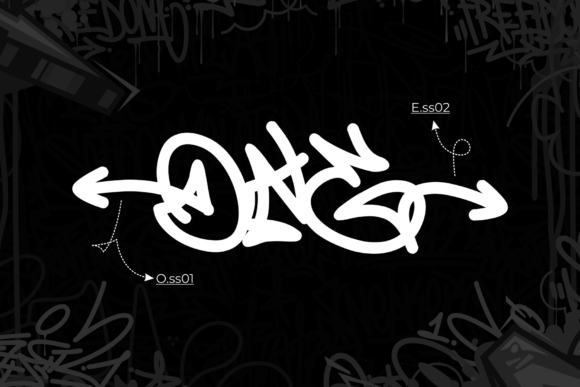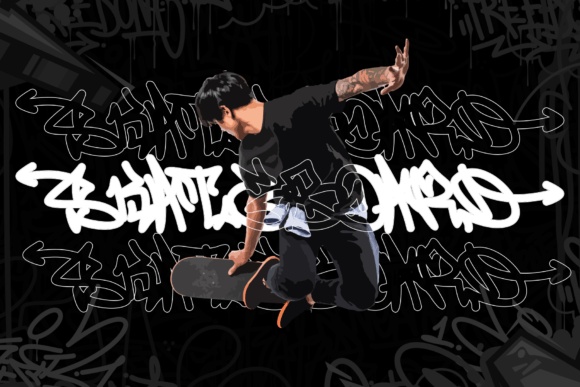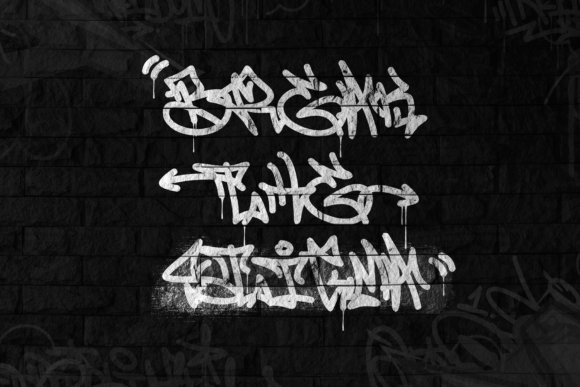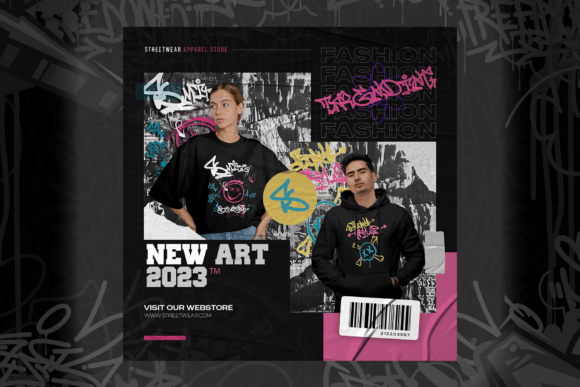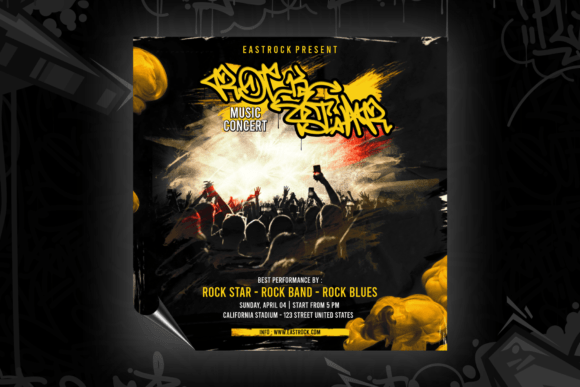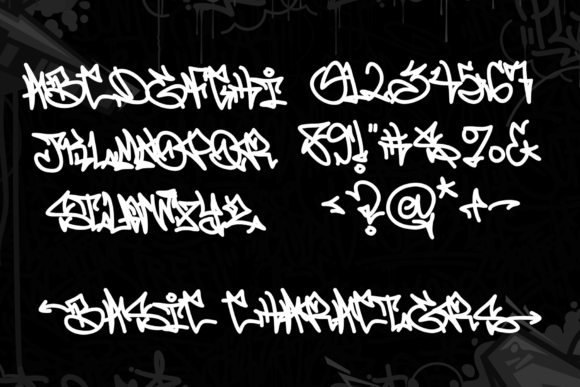
Unlocking the Power of Phantom Urbanism Font
Have you ever been stuck on a creative project, unable to find the perfect font to bring your design to life? You’re browsing through a sea of options, and nothing seems to capture the edgy, urban vibe you’re going for. That’s where the Phantom Urbanism Font comes in – a monoline display font that’s designed to add attitude and energy to your work.
With its bold and high-quality appearance, Phantom Urbanism Font is the perfect design resource for any creative project. Whether you’re working on a streetwear logo, a car decal, or a skateboard design, this font is sure to make a statement. And the best part? It’s PUA encoded, making it easy to access all of the glyphs and swashes you need to create a truly unique design. Plus, with a transparent background, you can easily integrate it into your design without any hassle.
Key Features of Phantom Urbanism Font
- High-quality, unique design perfect for creative projects and urban-themed designs.
- Includes a range of characters, including letters, numbers, and symbols, making it a versatile font for various applications.
- Phantom Urbanism Font is ideal for use in creative projects, such as graphic design, digital art, and urban-themed designs, where a unique and high-quality font is required.
Honest Review: Phantom Urbanism Font
- ✨ High-quality glyphs and characters that are perfect for cityscapes and urban environments.
- ✨ Beautifully crafted letterforms that are both modern and nostalgic at the same time.
- ✨ Perfect for use as a design resource for posters, flyers, and other promotional materials.
However, I did notice a few limitations with the Phantom Urbanism Font.
- ⚠️ Some of the letters can be a bit difficult to read at smaller font sizes, especially for those with vision impairments.
Overall, I’m really impressed with the Phantom Urbanism Font. It’s a fantastic design resource that’s perfect for any creative project that needs a unique, urban feel. While it has its limitations, I believe the benefits far outweigh the drawbacks.
Phantom Urbanism Font
Getting the Most Out of Phantom Urbanism Font
For optimal results:
- Experiment with different font sizes and combinations.
- Pair Phantom Urbanism Font with other high-quality design resources.
- Use it in creative projects that require a unique, urban aesthetic.
Phantom Urbanism Font is ideal for:
- Graphic design projects.
- Urban-themed posters and flyers.
- Brand identity and logo designs.
Alternatives to Phantom Urbanism Font